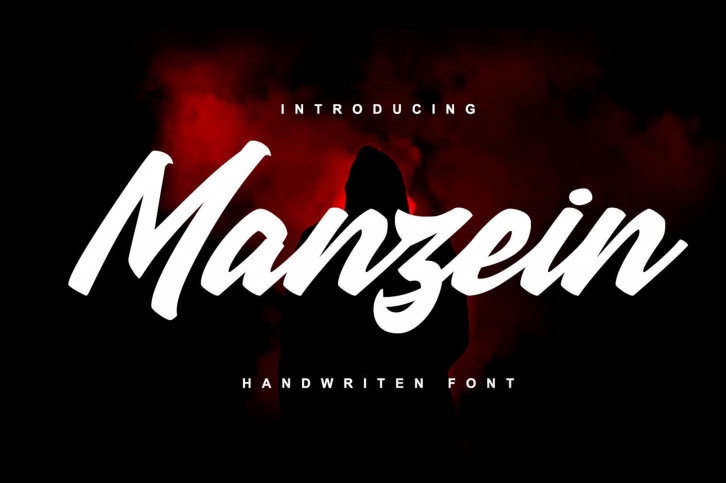
Manzein is a beautiful font that was designed by Ardian Nuvianto. It's a great choice for designers and creatives who need such a font. It was released on August 19, 2019 and the file size is 16.24 MB. Manzein may give a more youthful, expressive and casual look to your project. It is a very beautiful, refined, elegant, and high-quality font.